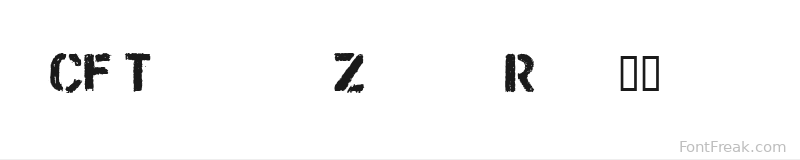
CF Trash Zone Regular
CF Trash Zone Regular by Cloutierfontes is a distinctive display font that embodies a playful yet rugged aesthetic. As a decorative typeface, it features irregular strokes that evoke a sense of spontaneity and creativity. The font's design showcases a medium stroke weight with noticeable variations, creating a unique contrast that draws attention. The characters are spaced in a way that enhances readability while maintaining an artistic flair, making it an excellent choice for various creative projects.
This font is versatile, making it suitable for a range of applications. It works exceptionally well for eye-catching movie posters, where its bold and unconventional style can capture the audience's interest. Additionally, CF Trash Zone Regular is an excellent choice for restaurant menus, particularly for casual dining establishments aiming for a laid-back and inviting vibe. Graphic designers might also find it useful for creating striking event flyers or music album covers, as it conveys an edgy and youthful spirit. Content creators can use this font for social media graphics, helping to elevate their visual content with a unique touch.
What makes CF Trash Zone Regular stand out is its ability to balance artistic expression with functionality. This font captures attention without overwhelming the viewer, making it an ideal choice for anyone looking to make a statement in their design work. Its unique visual appeal is sure to leave a lasting impression, ensuring that your projects resonate with their intended audience.